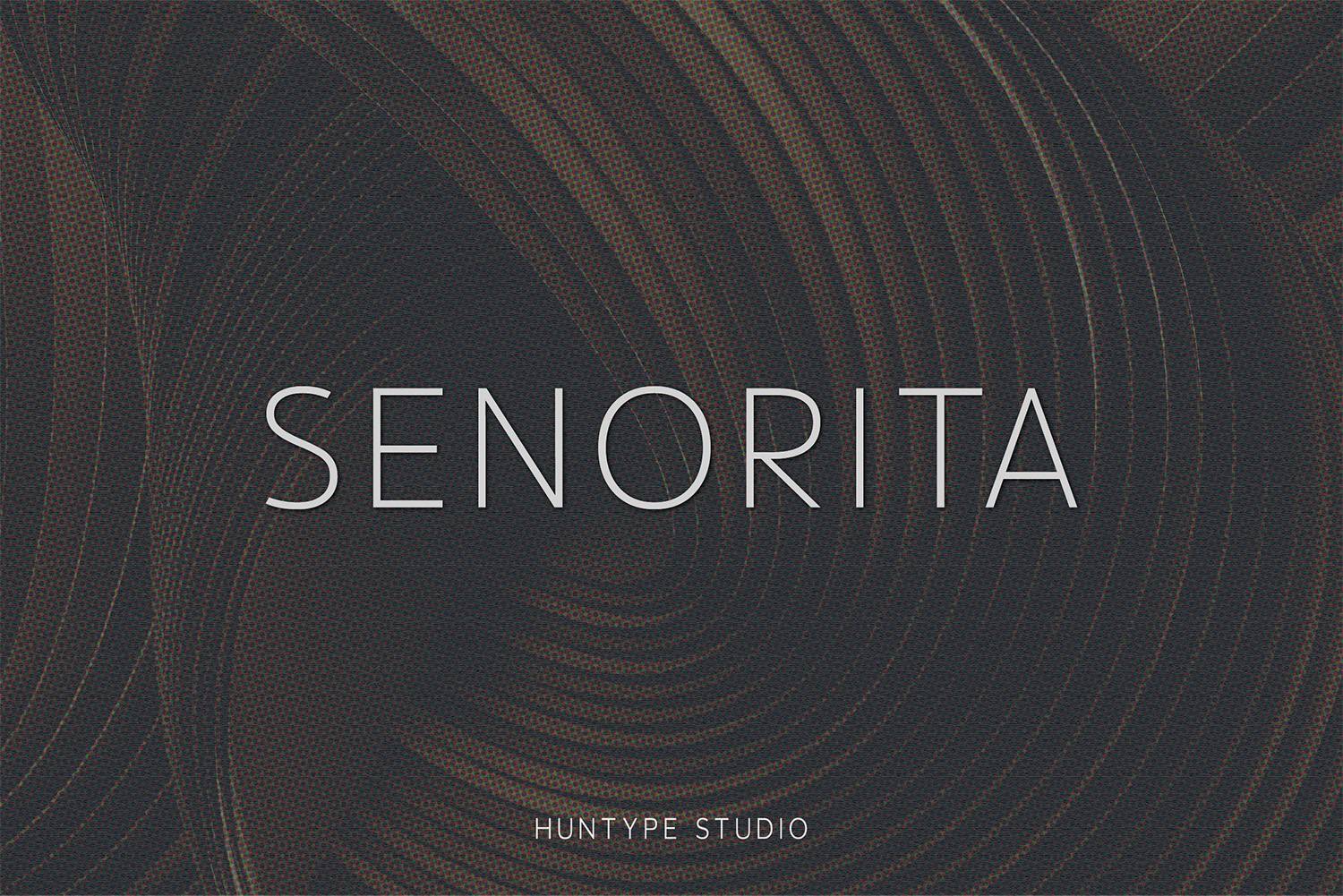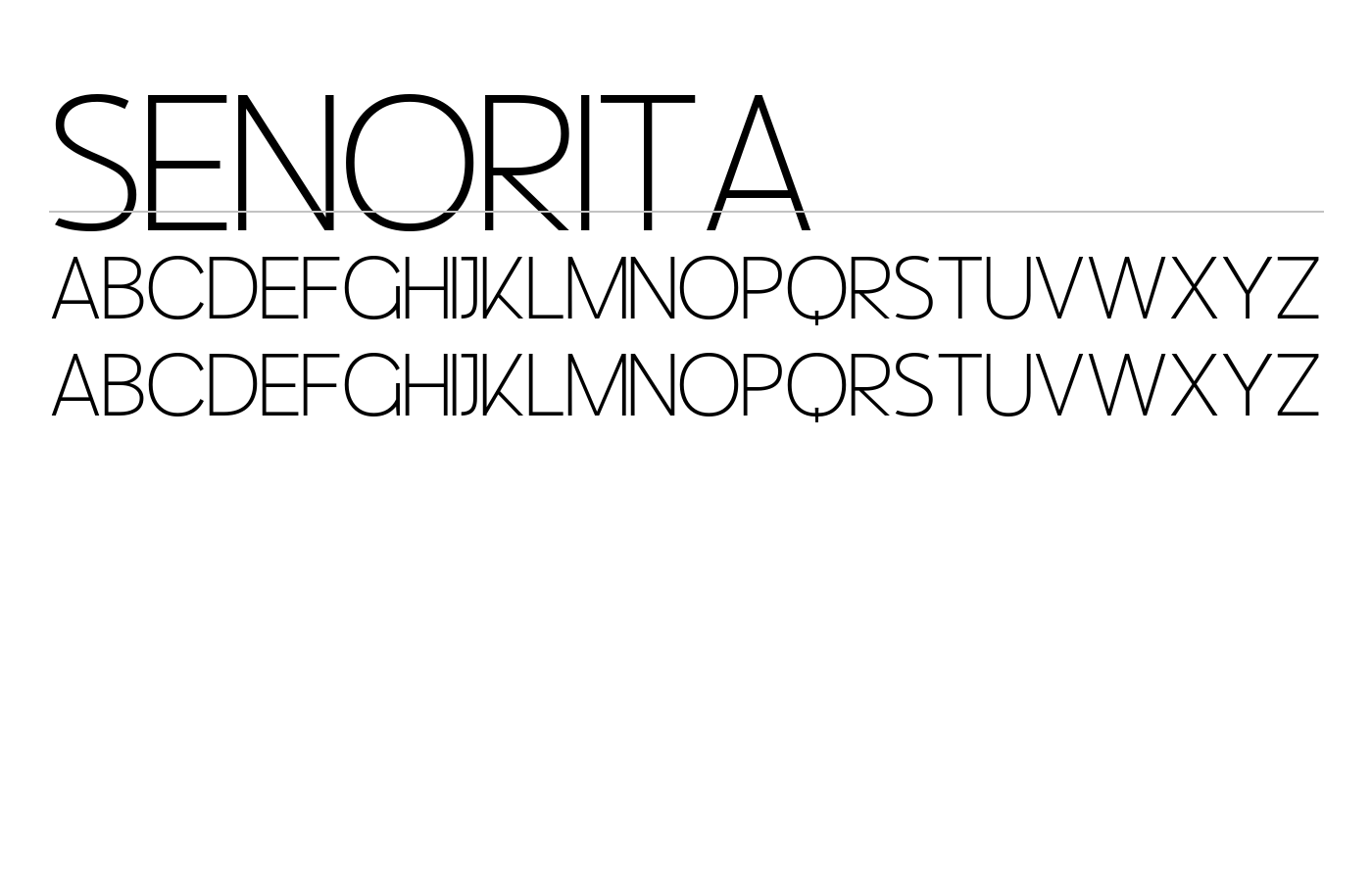
Senorita is a sleek, elegant sans serif font characterized by its very thin strokes and tall, narrow letterforms that give it a refined and modern feel. Its minimal contrast and clean, geometric shapes make it ideal for upscale branding, fashion, and editorial use where a sophisticated, airy look is desired. This font works best for headlines and logos, adding a stylish and contemporary touch without overwhelming the design.
Senorita Font
About Senorita Font